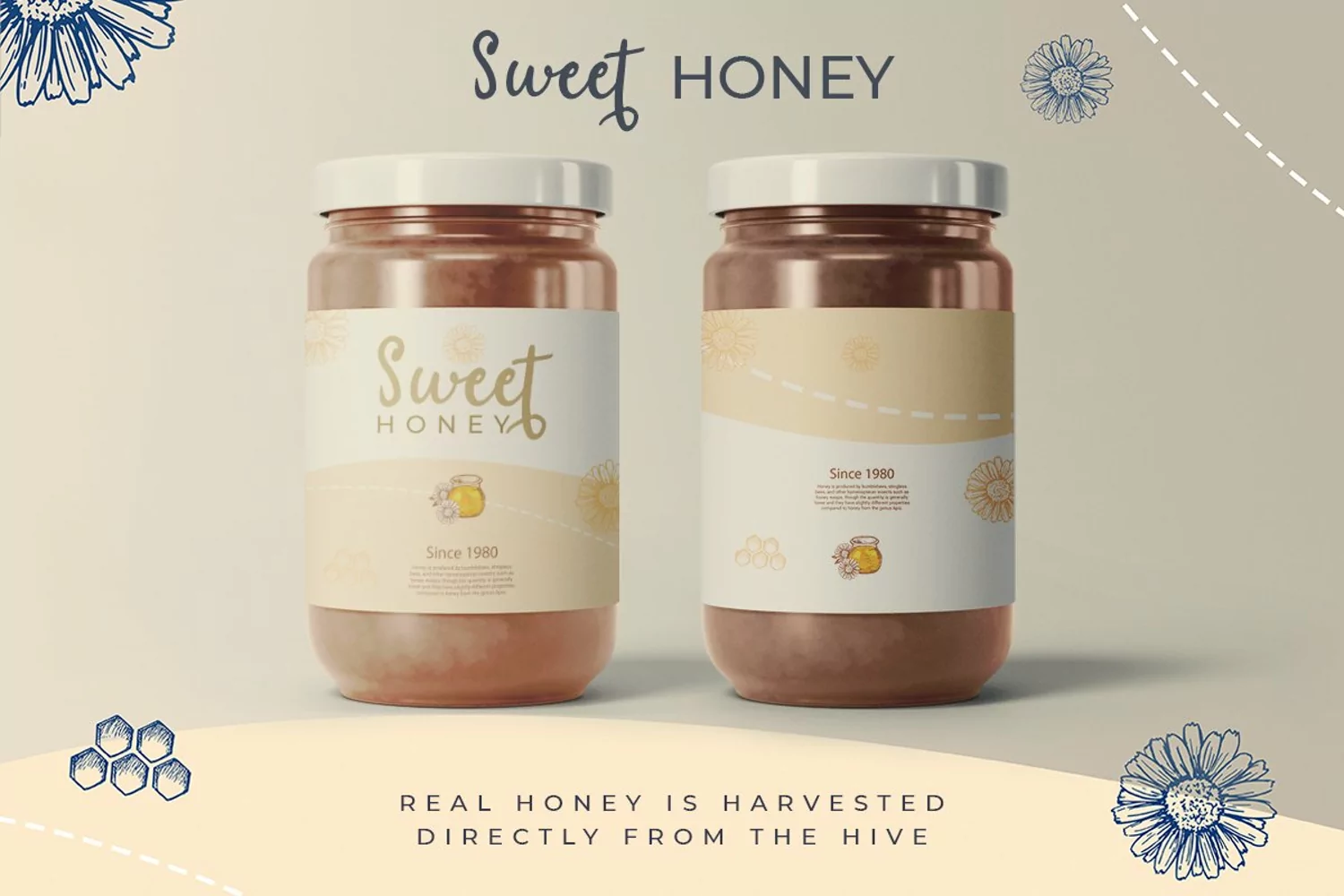
Just Love - Cute Unique Playful Handwritten Font
Just Love is A Playful Handwritten Font with cute and beauty style and so charming. This font specia…